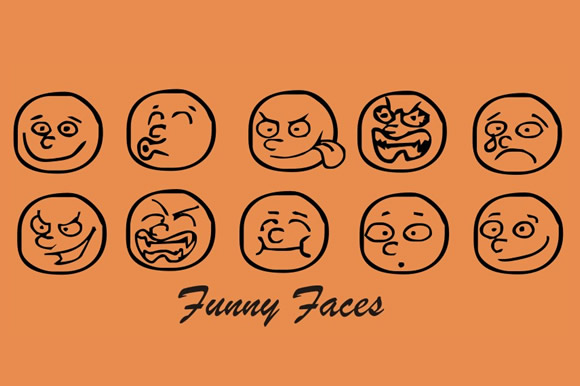
Unleash Your Inner Child and Bring Smiles to Your Designs with Funny Faces Font: A Whimsical Dingbats Collection That Will Transform Your Creative Projects!
In a world where monotony often prevails, let Funny Faces Font be the catalyst for your artistic liberation. This delightful font family, meticulously crafted by the talented Gustavo Lucero, is an enchanting collection of dingbats that will ignite your imagination and add a touch of lightheartedness to your designs.
Funny Faces Font is more than just a collection of symbols; it's an invitation to express yourself in a unique and playful way. With its captivating characters, you can infuse your projects with an infectious sense of joy and amusement. Whether you're designing social media posts, website graphics, or eye-catching posters, Funny Faces Font will help you create visuals that resonate with your audience and leave a lasting impression.
Dive into the world of Funny Faces Font and discover a treasure trove of whimsical characters that will tickle your funny bone and ignite your creativity. From mischievous smileys and quirky animals to playful objects and abstract shapes, this font family has something for every occasion. Let your imagination run wild as you mix and match symbols to create captivating compositions that are sure to bring joy to all who see them.
It's time to break free from the ordinary and embrace the extraordinary with Funny Faces Font. Let your designs radiate with personality, warmth, and humor. As you explore the endless possibilities of this font family, you'll find it's not just a tool; it's a source of inspiration, a gateway to a world where laughter and creativity dance hand in hand.